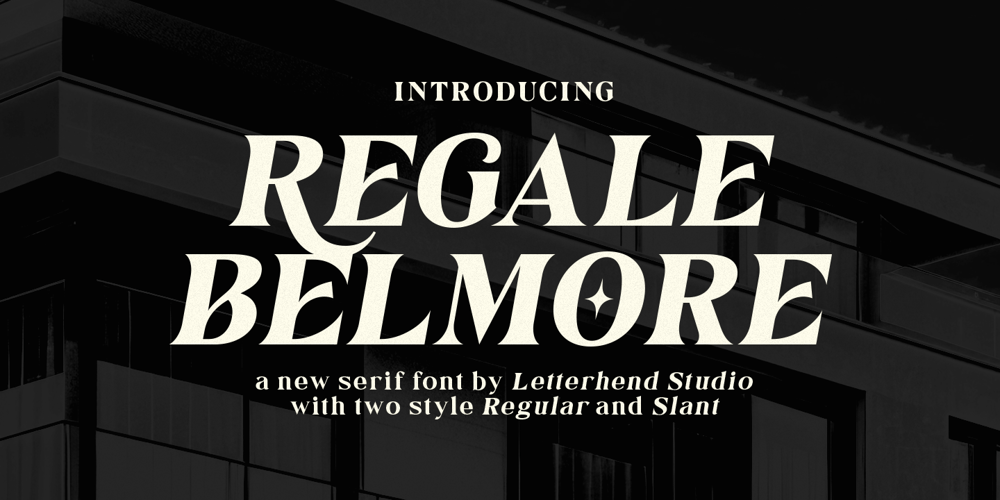
Regale Belmore Font Family was designed by Hendry Juanda and published by Letterhend. Regale Belmore contains 2 styles and family package options. Regale Belmore is a organic serif with regular and slant style. It comes with ligature chatacters. This font perfectly made to be applied especially in logo, and the other various formal forms such as invitations, labels, logos, magazines, books, greeting / wedding cards, packaging, fashion, make up, stationery, novels, labels or any type of advertising purpose.Features : Uppercase & lowercase Numbers and punctuation Alternates & Ligatures Multilingual PUA encoded